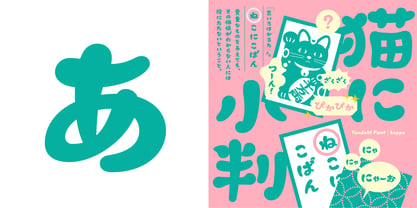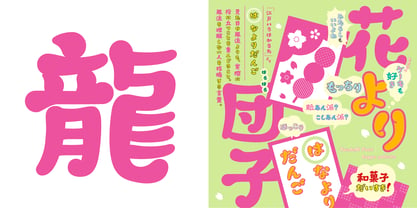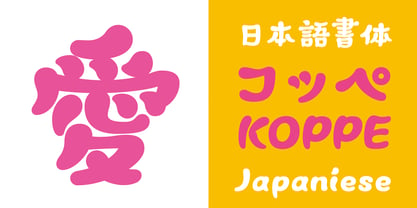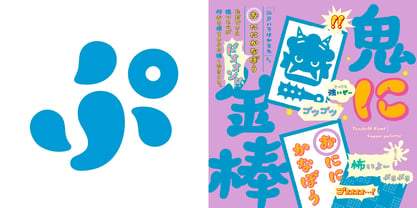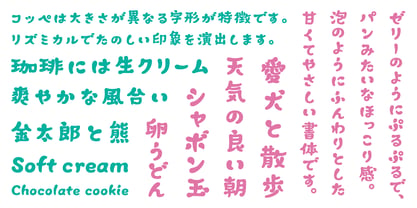
TM Koppe
by Tomomi Kanda
The TM Koppe Font Family was designed by Tomomi Kanda and published by Tomomi Kanda. TM Koppe contains 1 styles. More about this family
A soft, plump, and comical typeface. The size varies depending on the character, creating a playful and dynamic expression. Perfect for headlines and captions.
About Tomomi Kanda
Tomomi Kanda creates typefaces that are both distinctive and easy to read, aiming for beauty while grounded in the calligraphy she has studied since childhood. Her typefaces have been released on platforms like Adobe Fonts and have received favorable reviews. In Japan, they are widely used for book and movie titles, posters, packaging, and more. She is a member of the Japan Typography Association and a part-time lecturer at Nara College of Art. Awards include:Nitten Exhibition (Calligraphy Division) - Selected in 2023 and 2024;Typography Yearbook 2024 - Jury Prize.